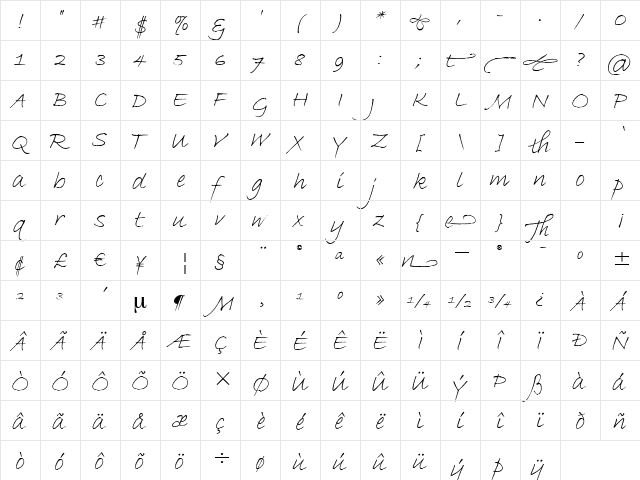
Bradley Hand ITC TT Italic
| Foundry | International Typeface Corporation |
| Designer | Richard Bradley |
Design Context for Bradley Hand ITC TT Typeface
Bradley Hand ITC TT brings a calligraphic fluidity to the page — its connecting strokes and expressive curves give it an unmistakably human quality.
Font Pairing: Combine Bradley Hand ITC TT with a simple geometric sans for maximum contrast — the tension between flowing curves and clean structure is a classic typographic pairing.